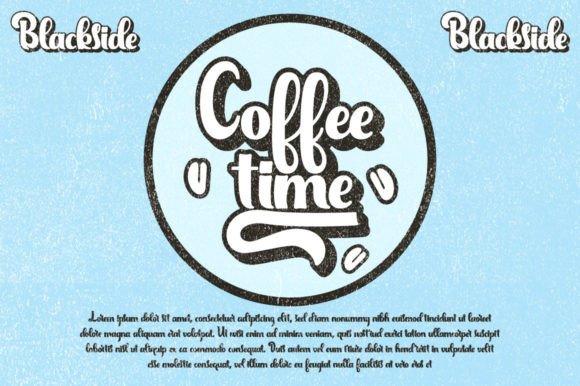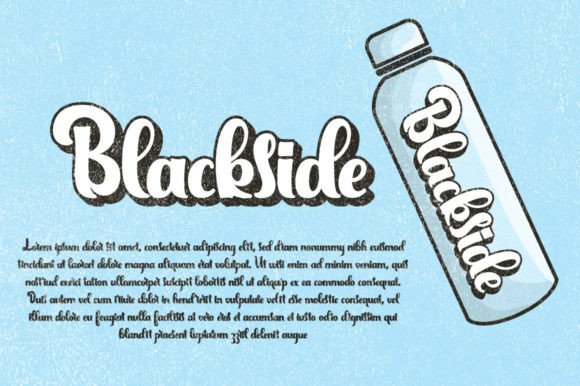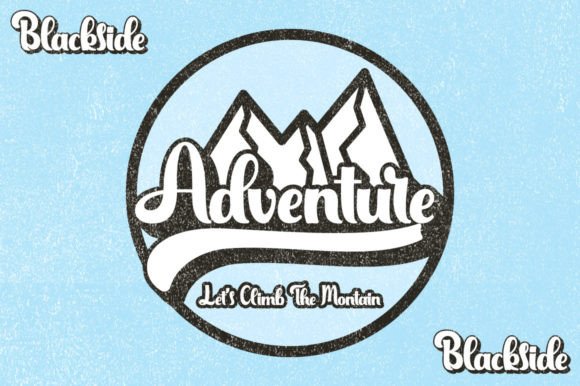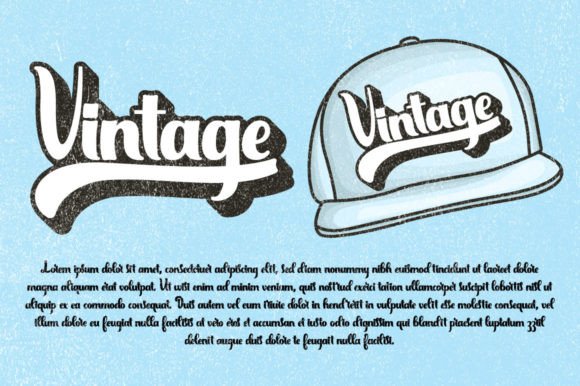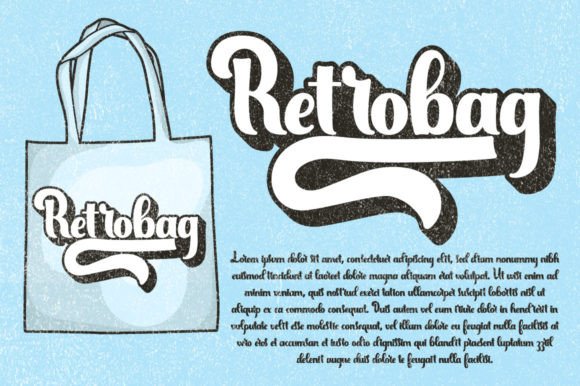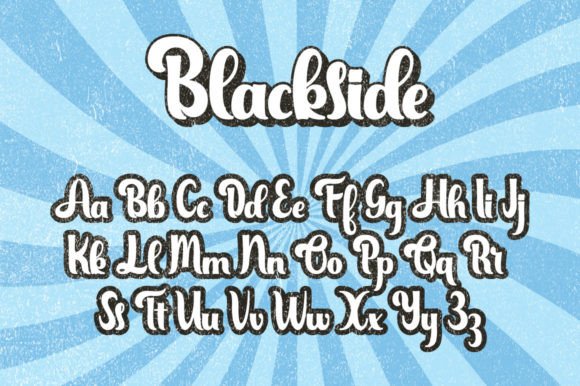
Introducing Blackside Font: The Ultimate Retro Script Font for Your Design Needs
Are you looking for a font that can add a touch of nostalgia and playfulness to your designs? Look no further than Blackside Font, a cool vintage script font that’s perfect for creating retro-inspired projects. With its fun and casual charm, Blackside Font is ideal for designers and crafters who want to add a unique and eye-catching element to their work.
What is Blackside Font?
Blackside Font is a carefully crafted script font that embodies the spirit of vintage design. Its elegant and fluid lines are reminiscent of classic scripts from the past, while its bold and modern style makes it perfect for contemporary designs. Whether you’re working on a logo, poster, or social media graphic, Blackside Font is sure to make your project stand out.
Key Features of Blackside Font
- Retro Vibe: Blackside Font has a distinct retro charm that’s perfect for designs that require a nostalgic feel.
- Fun and Casual: The font’s playful and informal style makes it ideal for creative projects that need a lighthearted touch.
- Vintage Script Style: Blackside Font features a classic script style that’s inspired by vintage typography.
- Highly Versatile: The font can be used for a wide range of design projects, from logos and posters to social media graphics and more.
Uses for Blackside Font
Blackside Font is an incredibly versatile font that can be used for a variety of design projects. Here are some ideas to get you started:
- Logos and Branding: Use Blackside Font to create a unique and memorable logo for your business or brand.
- Posters and Flyers: Add a touch of retro flair to your posters and flyers with Blackside Font.
- Social Media Graphics: Use Blackside Font to create eye-catching social media graphics that will help your brand stand out.
- Invitations and Cards: Add a personal touch to your invitations and cards with Blackside Font.
- Crafting and Scrapbooking: Use Blackside Font to add a vintage touch to your crafting and scrapbooking projects.
Why Choose Blackside Font?
With so many fonts available, why choose Blackside Font? Here are just a few reasons why Blackside Font stands out:
- Unique Style: Blackside Font has a distinctive style that’s unlike any other font on the market.
- High-Quality Design: Blackside Font is designed to the highest standards, ensuring that your projects look professional and polished.